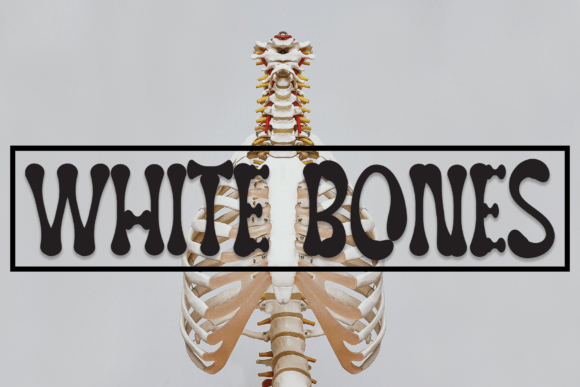
Dive into the realm of digital artistry with White Bones Font, a display font that captivates the senses with its distinctive aesthetic. Inspired by the intricate beauty of skeletal structures, this font exudes an aura of sophistication and elegance, making it the perfect choice for a wide range of creative projects.
Unleash your imagination and let your words dance across the screen with White Bones Font. Its carefully crafted letterforms, each resembling a delicate bone structure, bring a touch of organic charm to your designs. Whether you're crafting logos, creating social media posts, or designing product packaging, White Bones Font is sure to leave a lasting impression.
Step into a world of endless possibilities with White Bones Font. Its versatility knows no bounds, allowing you to effortlessly elevate the visual appeal of your projects. From wedding invitations that exude timeless elegance to product designs that demand attention, White Bones Font seamlessly adapts to your creative vision, adding a touch of sophistication and uniqueness to every endeavor.
Transport yourself to a world where typography takes center stage. White Bones Font's captivating style commands attention, ensuring your message stands out from the crowd. Its intricate details and graceful lines create a visual symphony that draws the eye and captivates the imagination. Experience the transformative power of typography as White Bones Font breathes life into your creative endeavors.